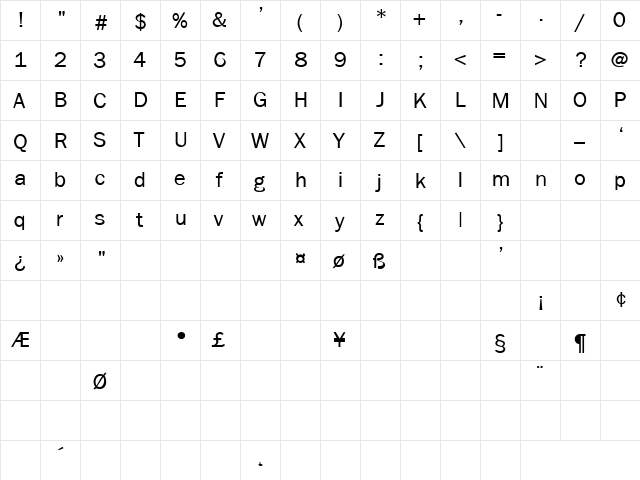
Moby Dick 7 Regular Font Preview
Moby Dick 7 Regular
Moby Dick 7 Regular Font Details
Design Context for Moby Dick 7 Typeface
Moby Dick 7 offers clean, dependable letterforms without strong stylistic allegiance, making it a practical choice for designers who need flexibility.